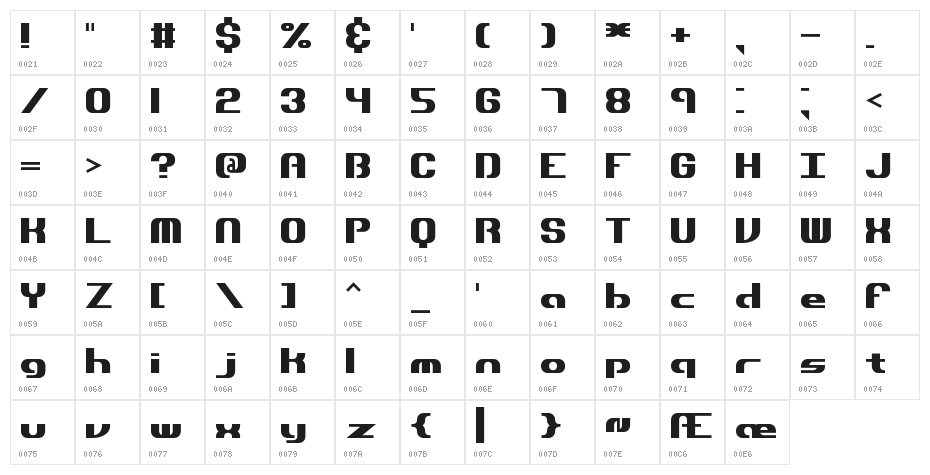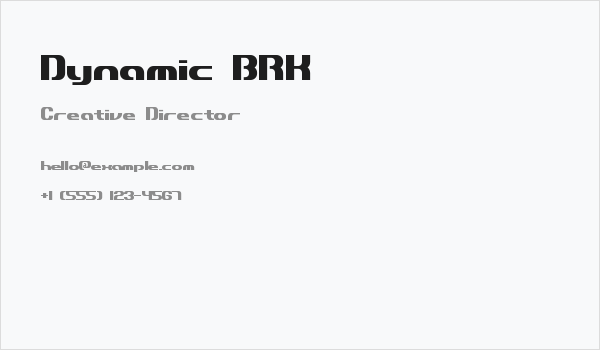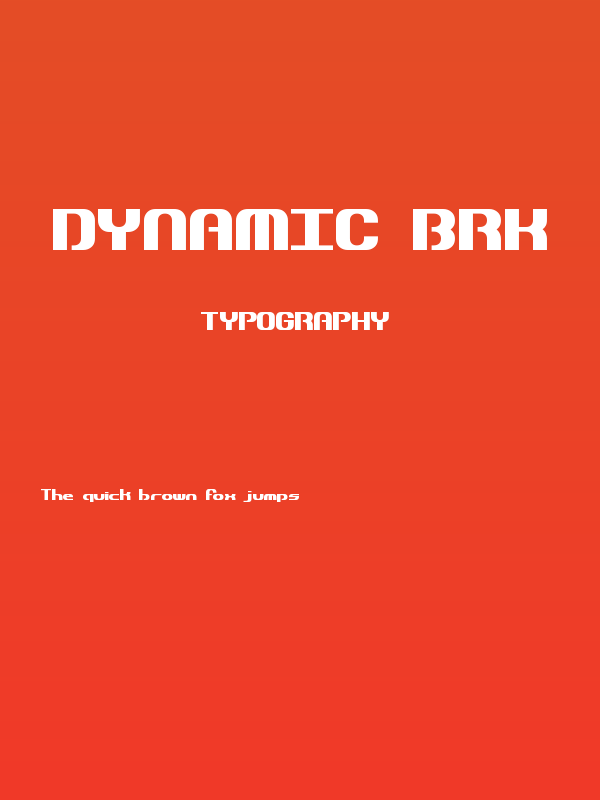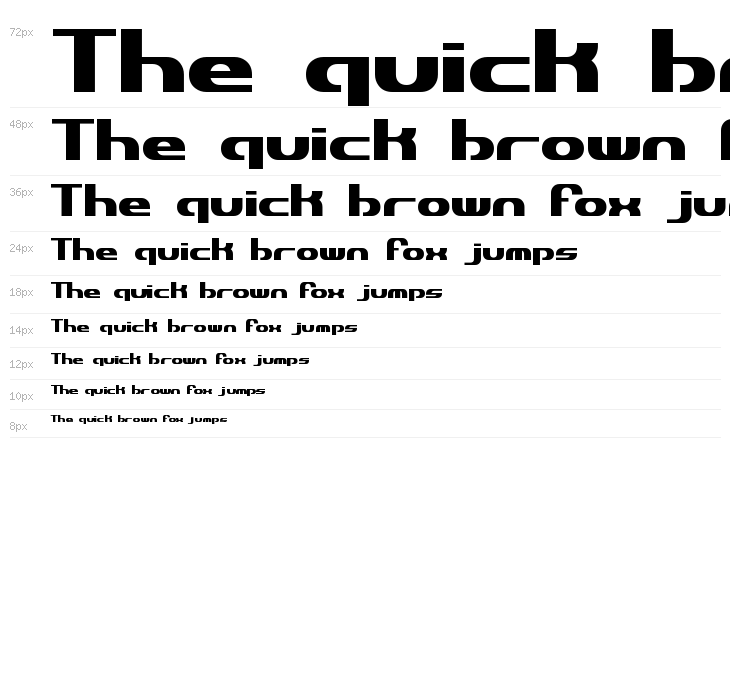
Dynamic BRK Font
Dynamic BRK Description
This font features a bold and dynamic style with strong geometric shapes and a futuristic aesthetic. The uppercase letters have a distinct blocky appearance with sharp angles and a consistent stroke width, giving them a modern and industrial feel. The lowercase letters maintain the same boldness but introduce more curves, adding a touch of softness to the overall design. Numbers are equally bold and geometric, ensuring readability and impact. Special characters are designed to match the bold and futuristic theme, making them suitable for attention-grabbing designs.
| Proposed Projects | Ideal for sci-fi themed posters, video game graphics, technology branding, and modern advertising campaigns. |